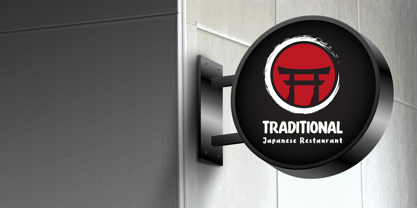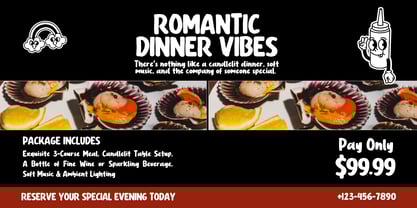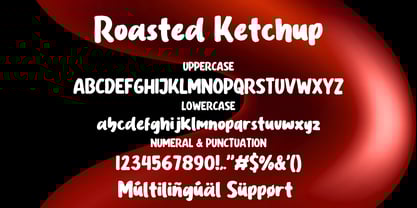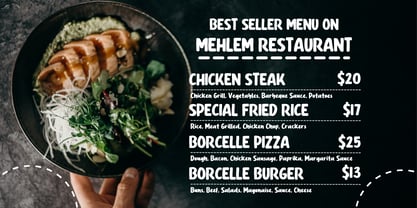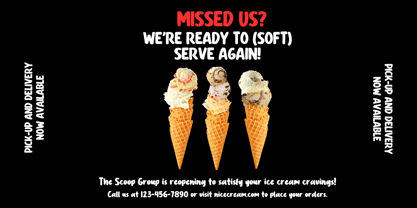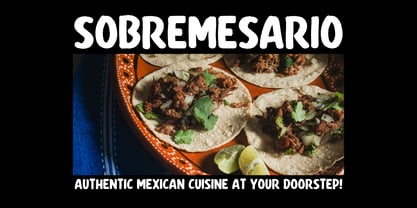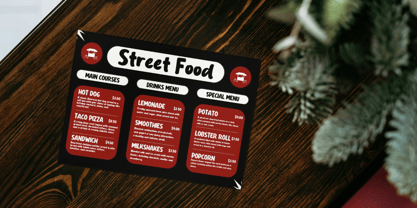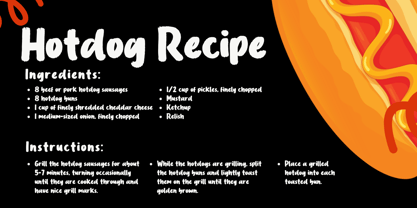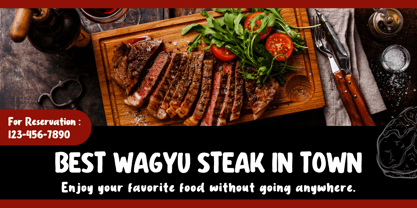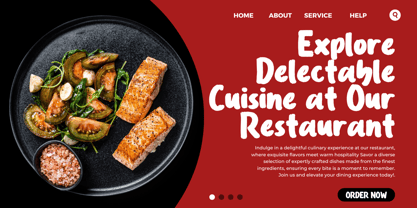
Roasted Ketchup
Roasted Ketchup is a handwritten brush display font full of character, perfect for various food branding needs. With its natural brush strokes and casual appearance, this font brings an authentic and energetic feel to your designs.
This font features uppercase & lowercase letters and multilingual support, making it highly versatile for various design projects, such as:
• Restaurant and food stall logos
• Food and beverage packaging
• Promotional posters and restaurant menus
• Product labels and culinary branding